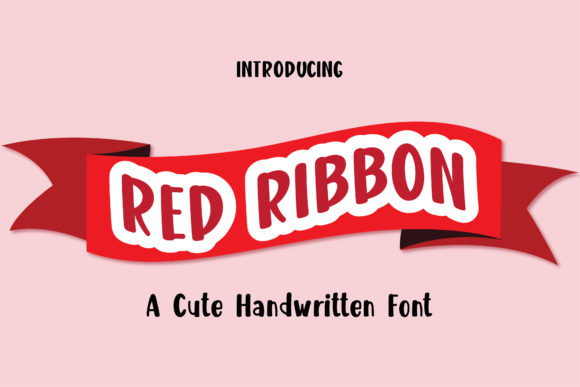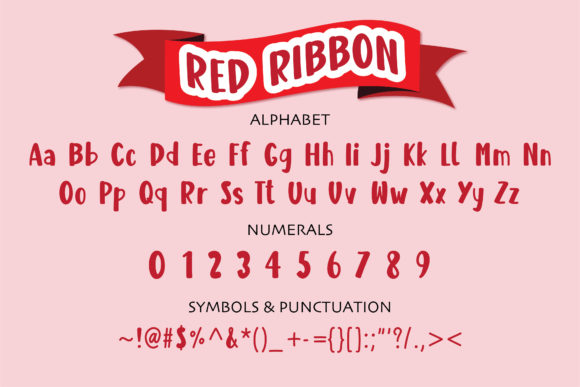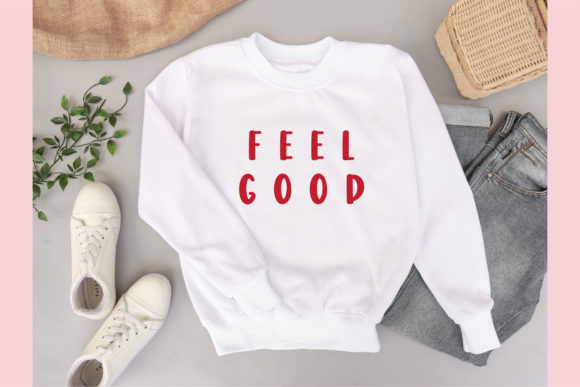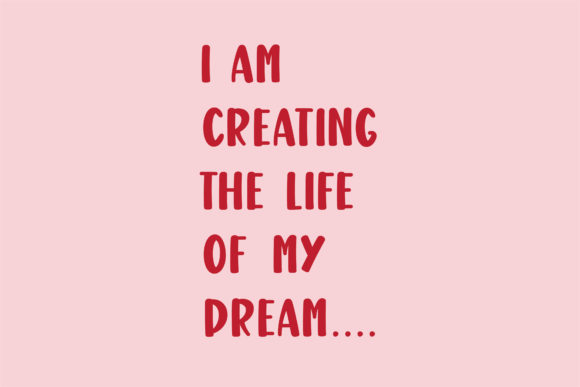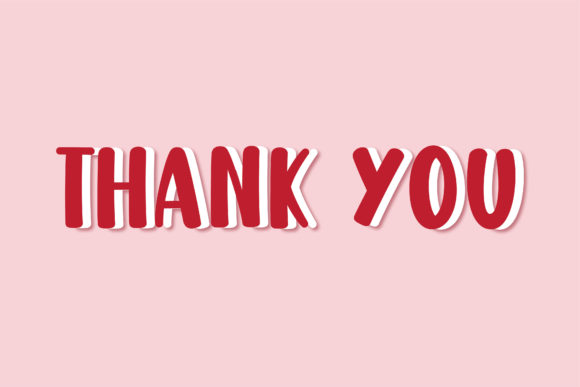
Red Ribbon Font
About Red Ribbon Font
Red Ribbon is a charming and versatile handwritten font that exudes a casual and natural vibe. With its distinctive and unique style, this font effortlessly complements a wide range of design projects, adding a touch of authenticity and warmth.
When used on wedding invitations, Red Ribbon brings a sense of intimacy and personalization. Its handwritten appearance adds a heartfelt and genuine feel, setting the tone for a memorable and special occasion.
For thank you cards and greeting cards, Red Ribbon adds a personal touch that resonates with recipients. The font’s casual elegance captures the essence of gratitude and well-wishes, making your messages even more meaningful.
When incorporated into quotes, Red Ribbon lends an air of authenticity and relatability. Whether it’s an inspirational quote or a playful saying, the font’s natural flow enhances the impact of the words, drawing readers in.
Logos and business cards benefit from Red Ribbon’s unique style, making your brand stand out with its approachable and friendly aesthetic. The font’s handwritten look adds a touch of personality, making a lasting impression on potential clients and customers.
Red Ribbon also shines in various other design contexts, such as social media graphics and website headers. Its casual yet appealing appearance captures attention and encourages engagement, making it a valuable asset for your online presence.
The font’s versatility extends to product packaging as well. Whether it’s labels, tags, or stickers, Red Ribbon adds an artisanal and handmade feel that appeals to a wide audience, enhancing the overall look and appeal of your products.
In summary, Red Ribbon is a casual handwritten font that effortlessly adapts to a diverse array of design projects. Its natural and unique style lends a personal touch and adds a sense of authenticity, making it an excellent choice for wedding invitations, thank you cards, quotes, logos, business cards, and various other creative endeavors.